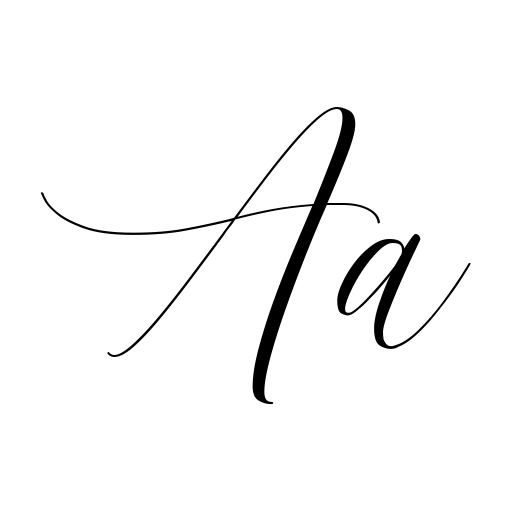
Adelia is a delicate, script-style font that features elegant, flowing letterforms with a mix of thin and slightly thicker strokes, giving it a graceful and feminine look. Its handwritten feel paired with high contrast and cursive connections makes it perfect for wedding invitations, branding, and any design seeking a romantic, stylish vibe. This font shines in headlines and decorative text where its artistic flair can truly stand out.
adelia Font
About adelia Font